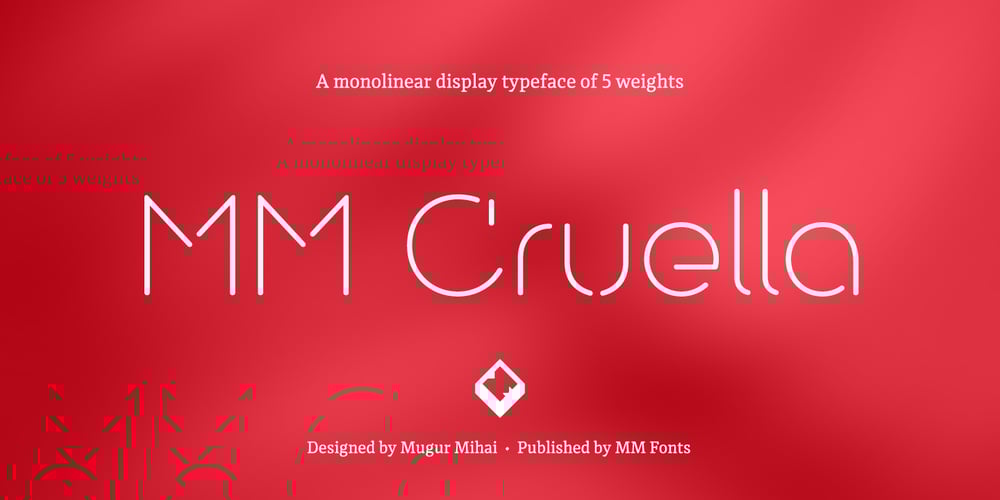
MM Cruella Font Family was designed by Mugur Mihai and published by MM Fonts. MM Cruella contains 5 styles and family package options. MM Cruella is a monolinear display typeface well suited for magazines headlines, posters, catalogs, branding and packaging. The round, large counters combined with the rounded terminals gives it a very fluid look and a warm character while the straight lines establishes a nice rhythm. It comes in 5 weighs and is loaded with discretionary ligatures and contextual alternates that will give your next project a very distinctive look.